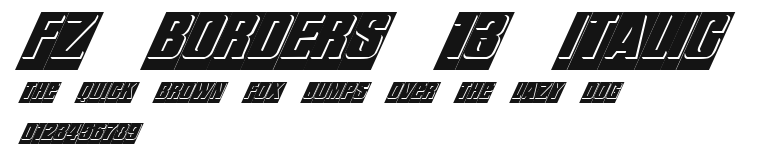
• Font Name: FZ BORDERS 13 ITALIC
• Font ID: Alts:FZ BORDERS 13 ITALIC
• Full Font Name: FZ BORDERS 13 ITALIC
• Version: 1.0 Mon Apr 25 16:15:56 1994
• PostScript Name: FZ-BORDERS13ITALIC
• Character Count: 176
About FZ BORDERS 13 ITALIC.ttf
FZ BORDERS 13 ITALIC.ttf is a modern, elegant sans-serif font designed for ultimate readability and visual harmony. Perfect for branding, headlines, web design, and print materials.